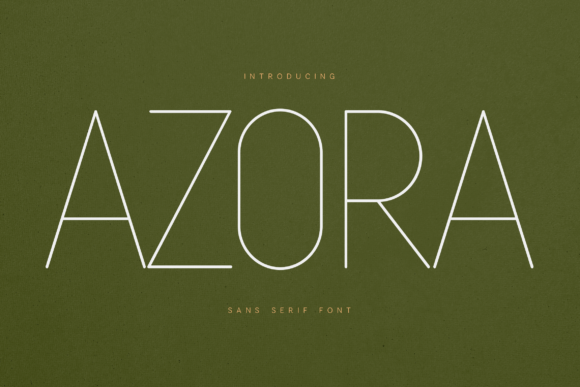
I still remember the frustration of working on a project, hours spent crafting the perfect design, only to be held back by one thing: the font. It was a client request for a modern, elegant look, but everything I tried seemed either too over-the-top or too bland. That’s when I stumbled upon Azora Font, a clean, minimal sans serif font that changed the game. In this article, I’ll share my experience with Azora, its features, and how to make the most of it in your designs.
First Impressions: What I Love About Azora Font
Azora Font is a beautifully crafted typeface that exudes elegance and precision. Here are some of the things I love about it:
- ✨ Clean and Minimal Design: Azora’s thin strokes, rounded geometry, and modern aesthetic make it perfect for contemporary branding, editorial layouts, posters, logos, UI design, and refined typography projects.
- ✅ Multilingual Support: Azora supports multilingual characters, numerals, and essential punctuation, making it versatile for professional and creative use.
- 💡 Airy Structure and Balanced Proportions: Azora’s design makes it ideal for both large display text and subtle compositions.
The Not-So-Perfect: Small Quirks and Limitations
While Azora Font is an excellent choice for many design projects, there are a few things to keep in mind:
- 🤔 Limited Contrast: Azora’s clean design can make it challenging to create visual hierarchy through contrast alone. Consider using size, color, or texture to differentiate elements.
- ⚠️ Not Suitable for Body Text: Due to its thin strokes, Azora may not be the best choice for body text, especially in smaller sizes. Consider using a more robust font for longer blocks of text.
The Story Behind Azora Font
Azora Font was designed with the goal of creating a clean, elegant, and versatile typeface for modern design projects. Inspired by the simplicity and sophistication of contemporary design, Azora’s creator aimed to craft a font that would be both beautiful and functional. While the exact story behind Azora’s creation may be unknown, its design reflects a deep understanding of typography and a passion for creating high-quality fonts.
| Font Name | Azora Font |
| Author | vladfedotovv |
| What is Azora Font best suited for? | Azora Font is ideal for contemporary branding, editorial layouts, posters, logos, UI design, and refined typography projects. |
| Does Azora Font support multilingual characters? | Yes, Azora Font supports multilingual characters, numerals, and essential punctuation. |
| Can I use Azora Font for body text? | While Azora Font can be used for body text, its thin strokes may not be suitable for smaller sizes. Consider using a more robust font for longer blocks of text. |